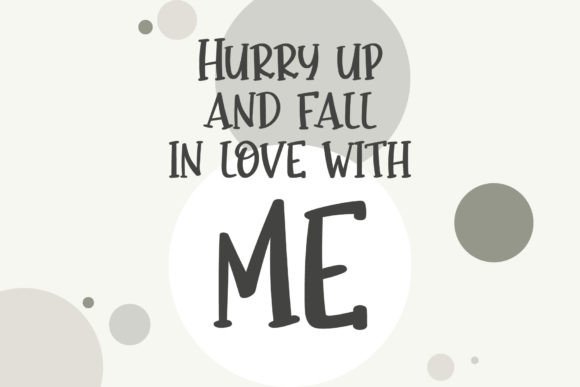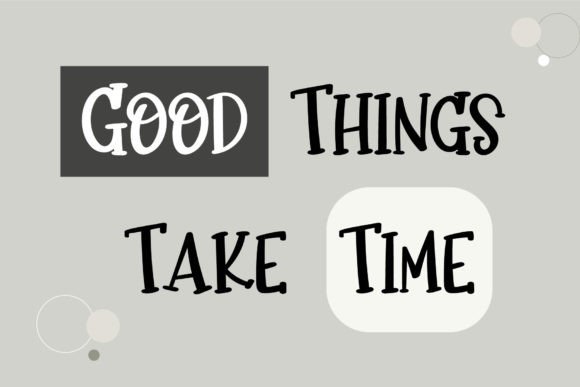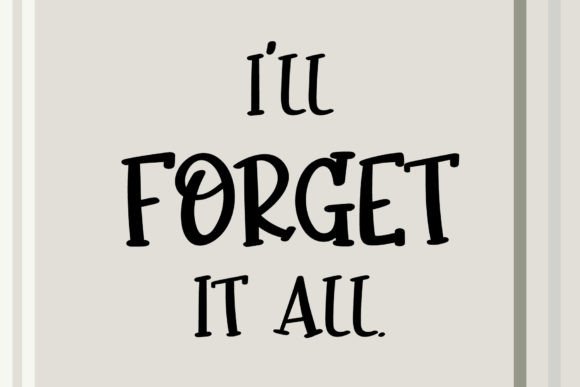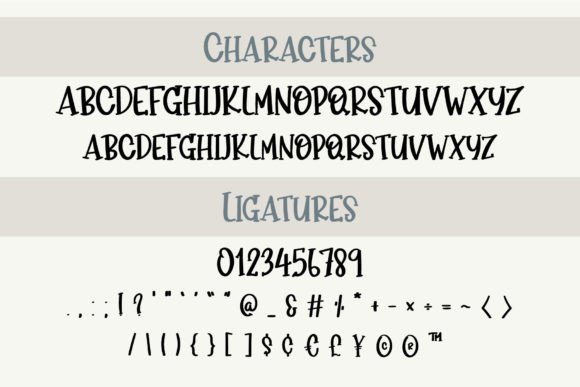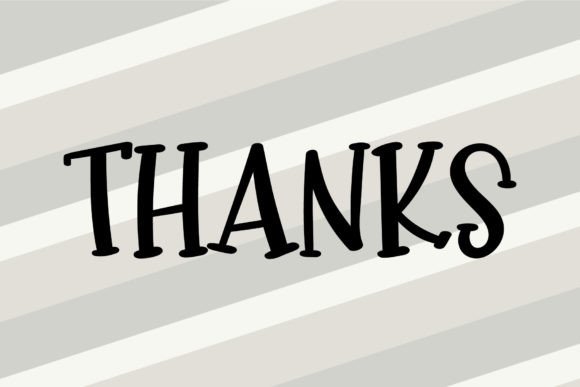
The Moment of Creative Bliss
Do you remember that moment when a spark of creativity strikes, and you know exactly what you want to create? For designers, it’s a feeling that’s hard to put into words, but it’s the rush of excitement that comes with envisioning a project from start to finish. It’s a feeling that Double You Font understands all too well, as it’s designed to bring your creative visions to life.
Double You Font is a versatile, stylish font that’s perfect for a wide range of design projects, from branding and headings to wedding designs, invitations, and logos. With its cool and sophisticated vibe, it’s the perfect tool to elevate your designs to the next level. Whether you’re a seasoned designer or just starting out, Double You Font is a valuable addition to your toolkit, waiting to unleash your creativity and bring your ideas to life.
Double You Font Key Features
- Unique Characteristics: The font features a distinctive, modern design with a unique blend of geometric and organic elements, making it an excellent choice for creative projects.
- Font Weight: The font is available in multiple weights, from Light to Black, allowing designers to achieve a range of visual effects and moods.
Double You Font Review
As a designer, I’m always on the lookout for unique and stylish fonts that can elevate a project. Double You Font is one such font that caught my attention with its quirky and playful vibe. ✨ The font’s bold and geometric lines give it a modern feel, making it perfect for graphic design projects that require a bit of edge.
- The font’s versatility is one of its strongest points. It can be used for a wide range of projects, from branding to advertising, and even for digital design elements.
- The font’s customizability is another plus. It comes in various weights and styles, allowing designers to mix and match to create a unique look.
- The font’s legibility is also commendable, making it easy to read even at smaller font sizes.
However, there are a few limitations to consider. ⚠️ The font may not be the best choice for projects that require a more formal or traditional look. Additionally, the font’s bold lines can sometimes make it difficult to read at very small font sizes.
Overall, Double You Font is a great addition to any designer’s toolkit. While it may have some limitations, its unique style and versatility make it a great choice for projects that require a bit of creativity and flair.
The Double You Font is a versatile font that can be used in various design projects, such as:
- Logos and branding materials.
- Print and digital advertising.
- Editorial and publishing materials.
Some tips to get the most out of Double You Font include:
- Using it in conjunction with other bold and playful fonts.
- Experimenting with different font sizes and styles.
- Pairing it with creative and eye-catching graphics.